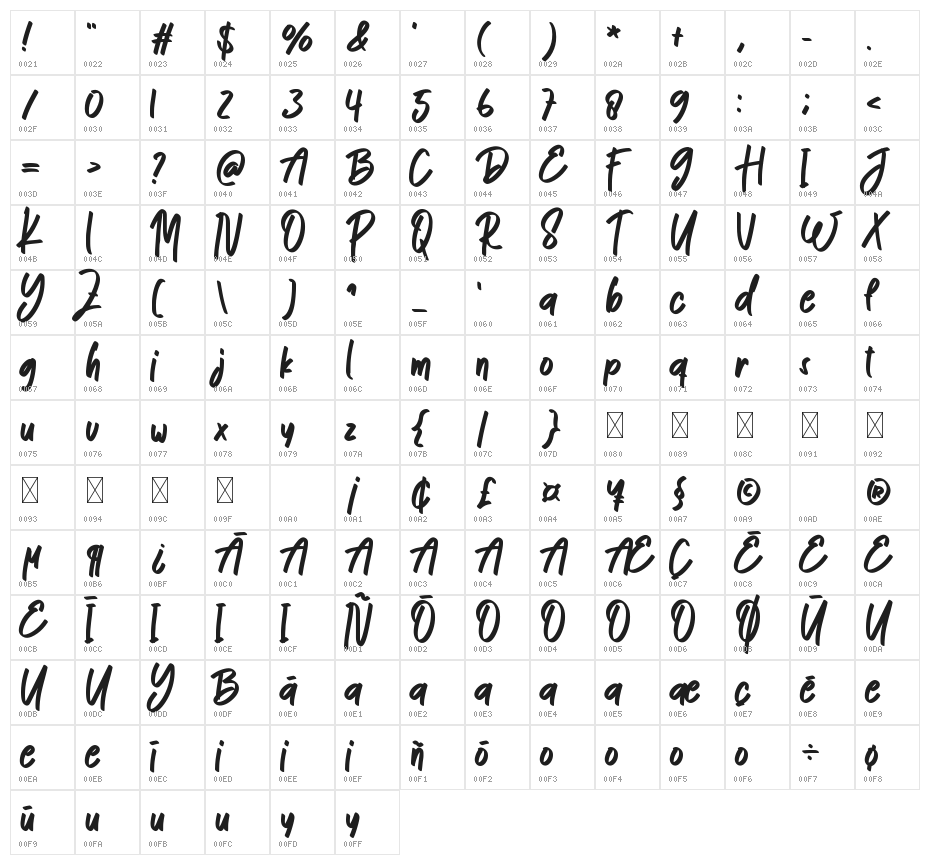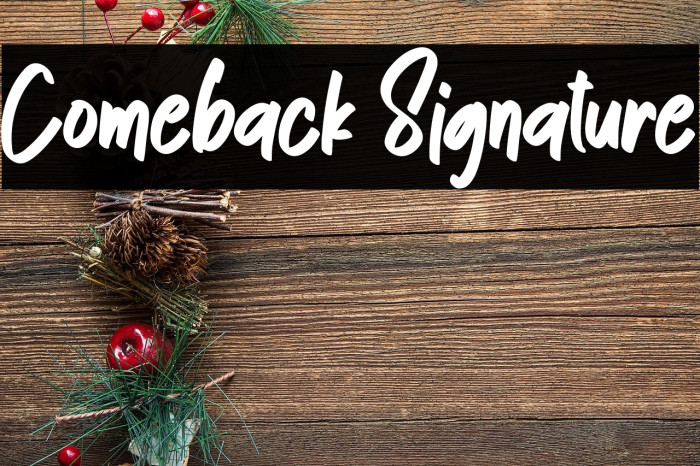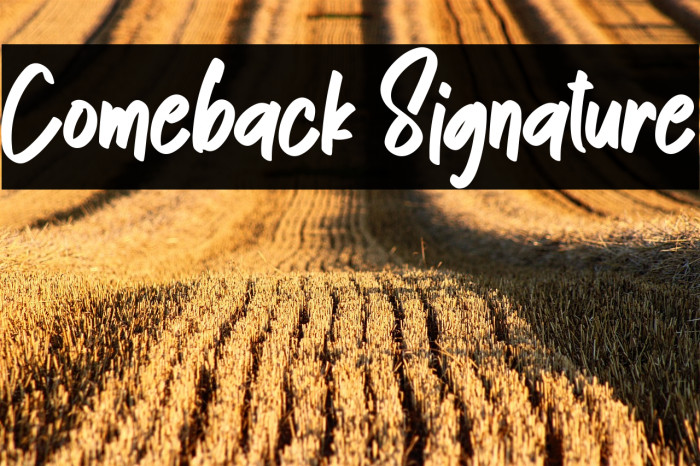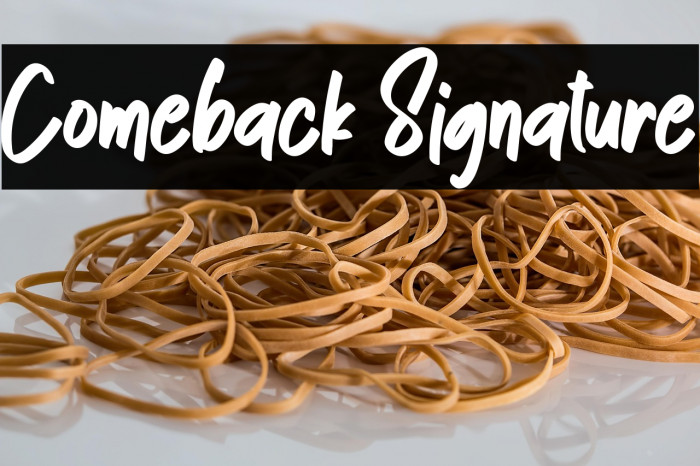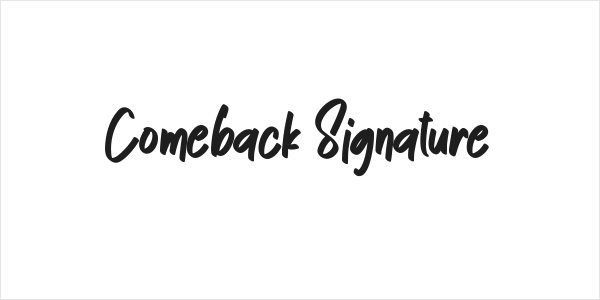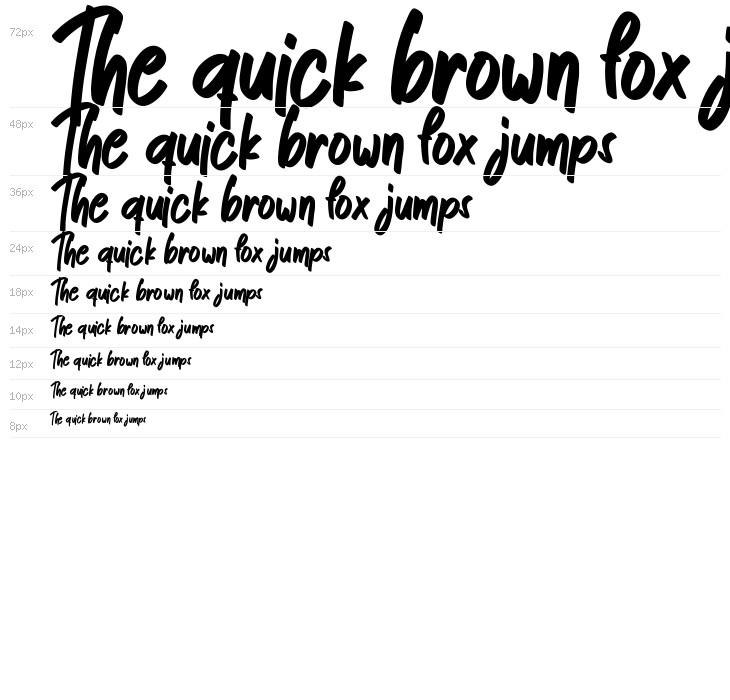
Comeback Signature Font
Comeback Signature Description
A bold, expressive handwritten font with a modern and energetic style, featuring dynamic strokes and a casual appearance.
Overall StyleModern, Energetic
Proposed ProjectsPosters, branding, social media graphics.